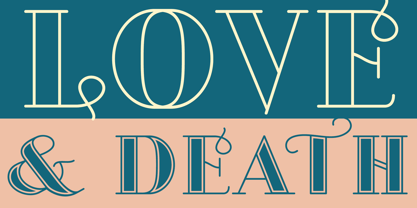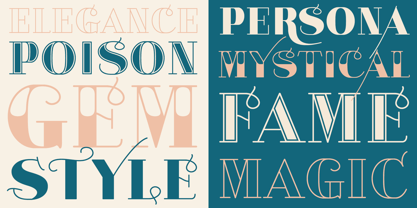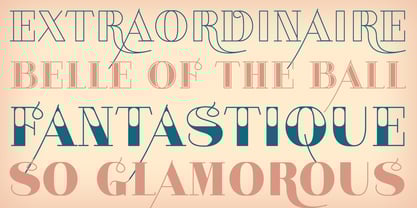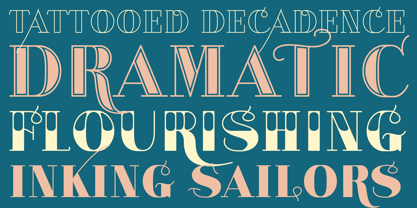
Opula
by VersusTwin
The Opula Font Family was designed by Brian J. Bonislawsky, Brian Jaramillo and published by VersusTwin. Opula contains 4 styles and family package options.
Opula is the rebirth and expansion of a typeface family created by Brian Jaramillo as part of his Agency26 project. Reminiscent of Sailor Jerry tattoo lettering with a more modern stylized edge to it and multiple style variations for your typesetting pleasure. Perfect for titling, logotypes, and so much more. You can even layer the fonts to create colorized type treatments as in the title poster for this family.
Designers: Brian J. Bonislawsky, Brian Jaramillo
Publisher: VersusTwin
Foundry: VersusTwin